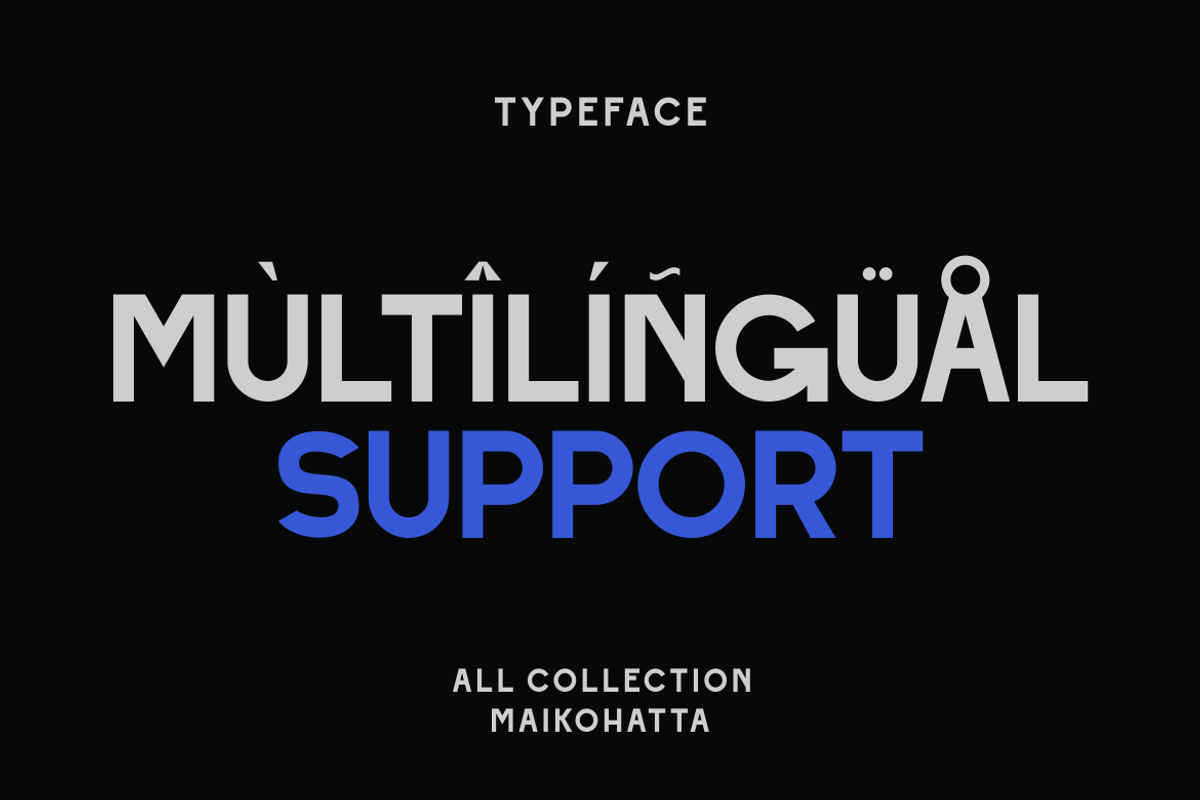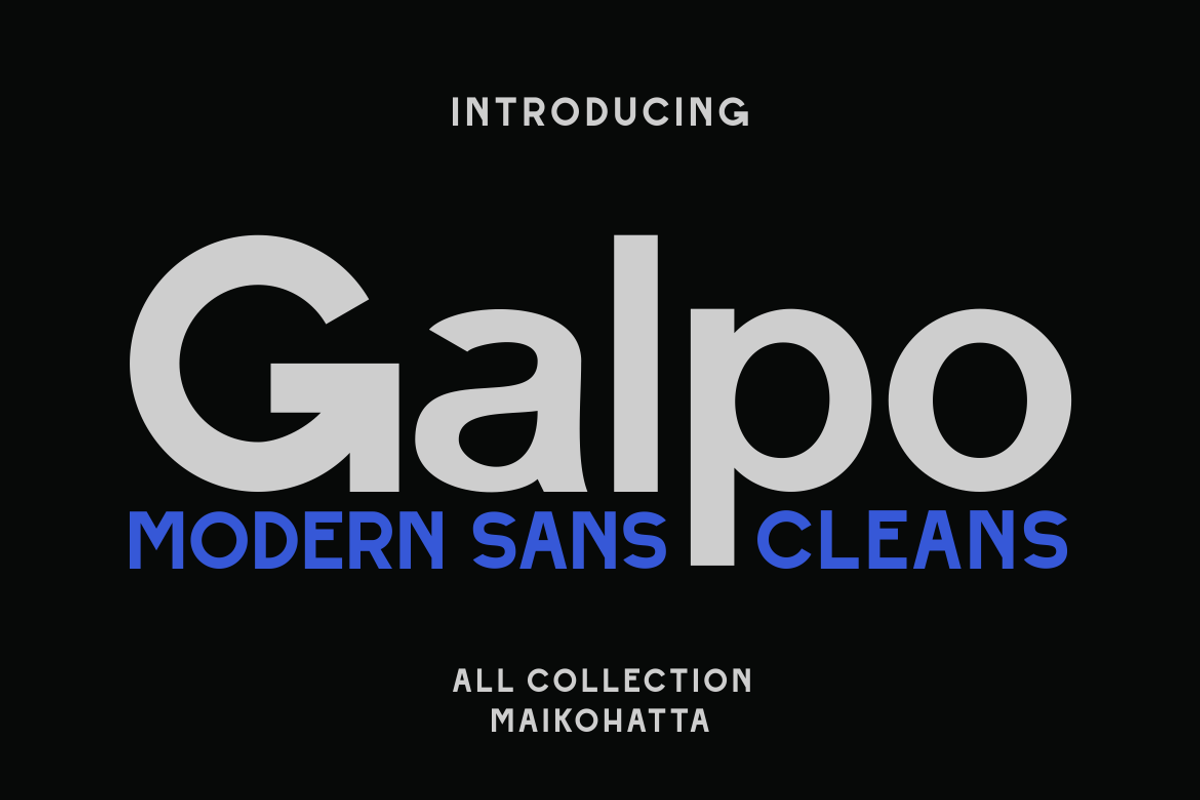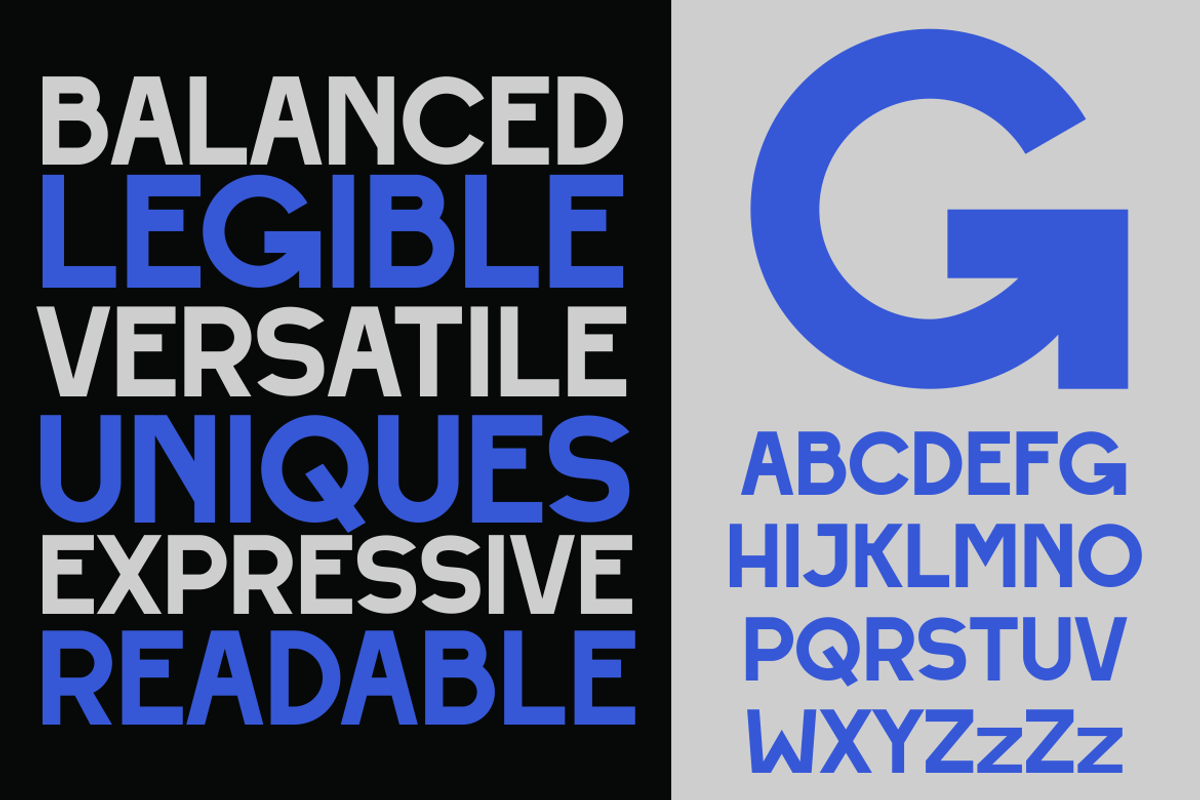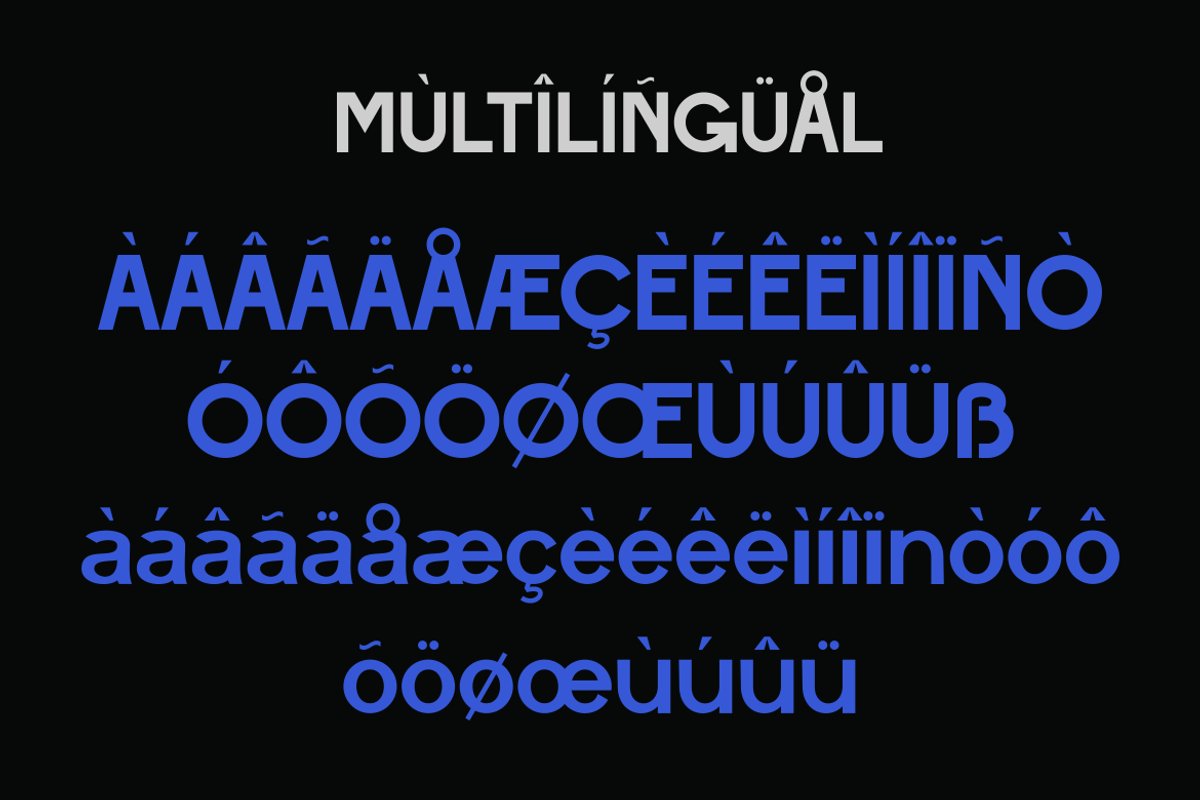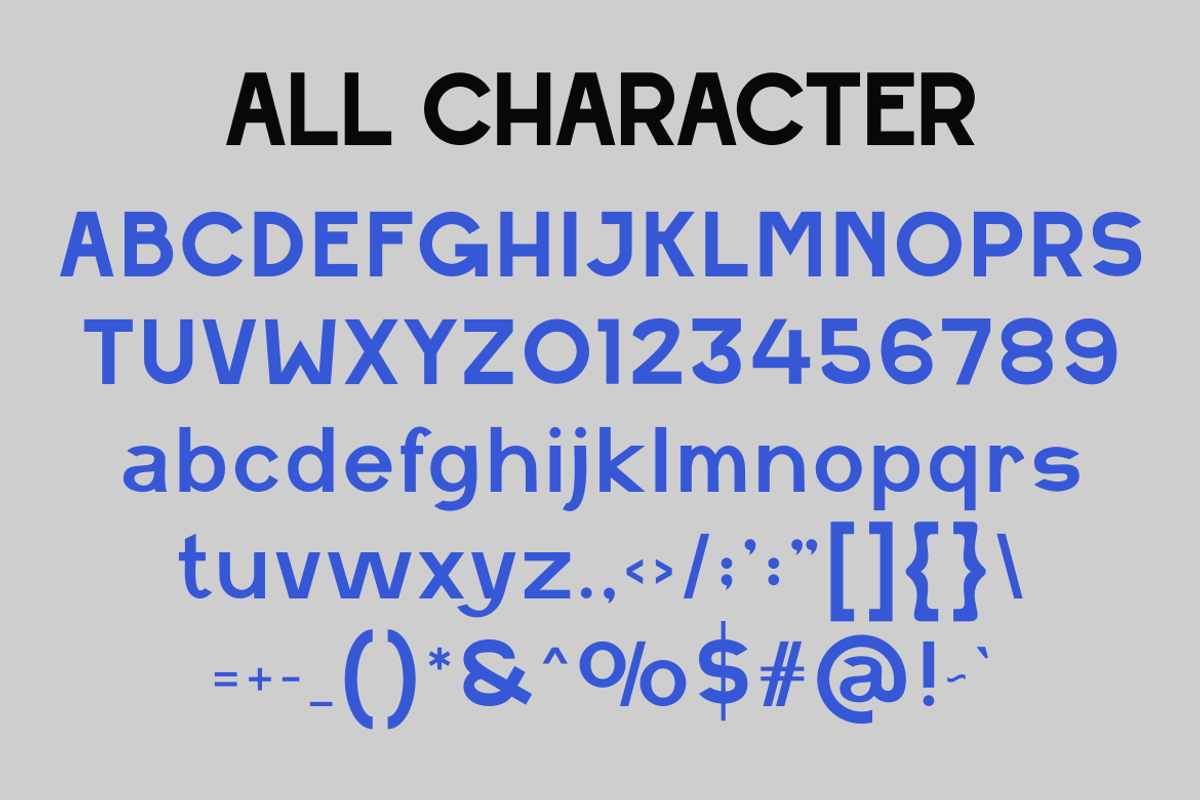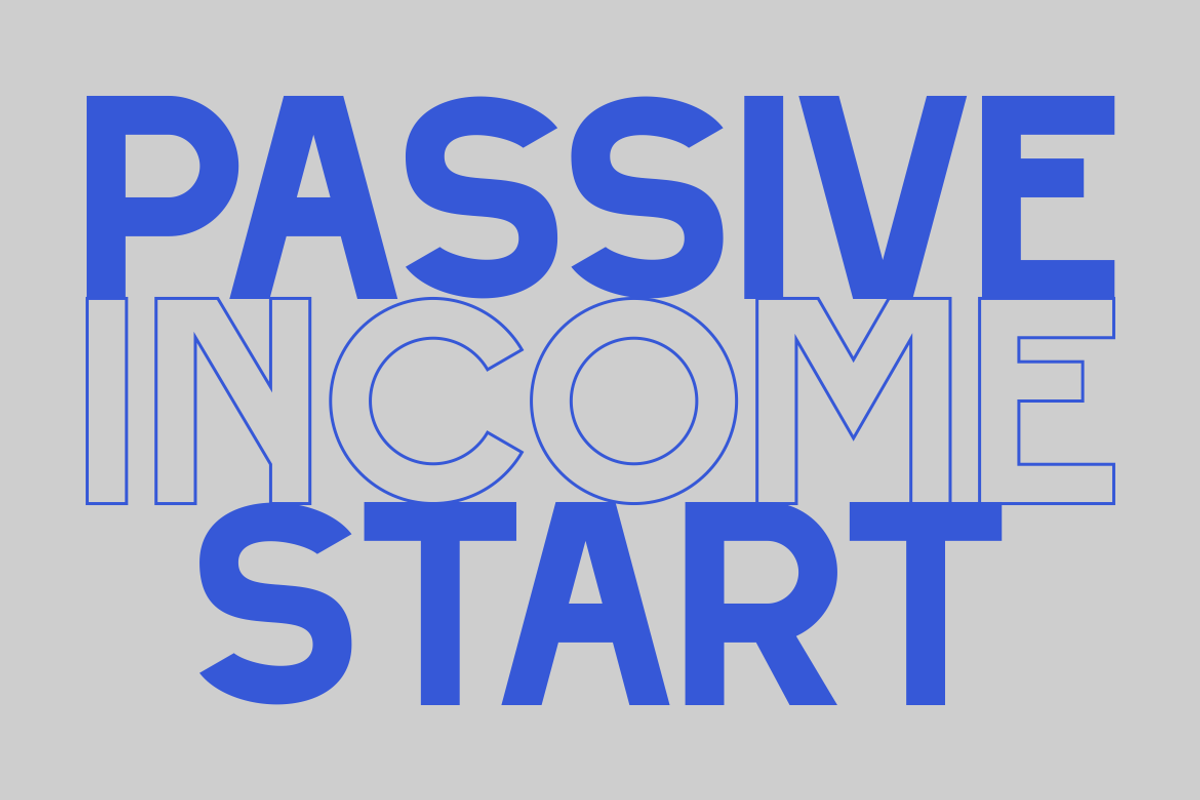
Galpo - Modern Sans Typeface
Introducing our new product Galpo - Modern Sans Typeface
Galpo - Modern Sans Typefacet is a bold and authentic display font. The font is suitable for any branding project like logo, template design, esport, and many more. outstanding in a wide range of contexts.